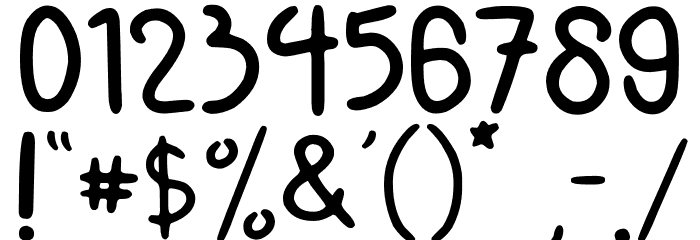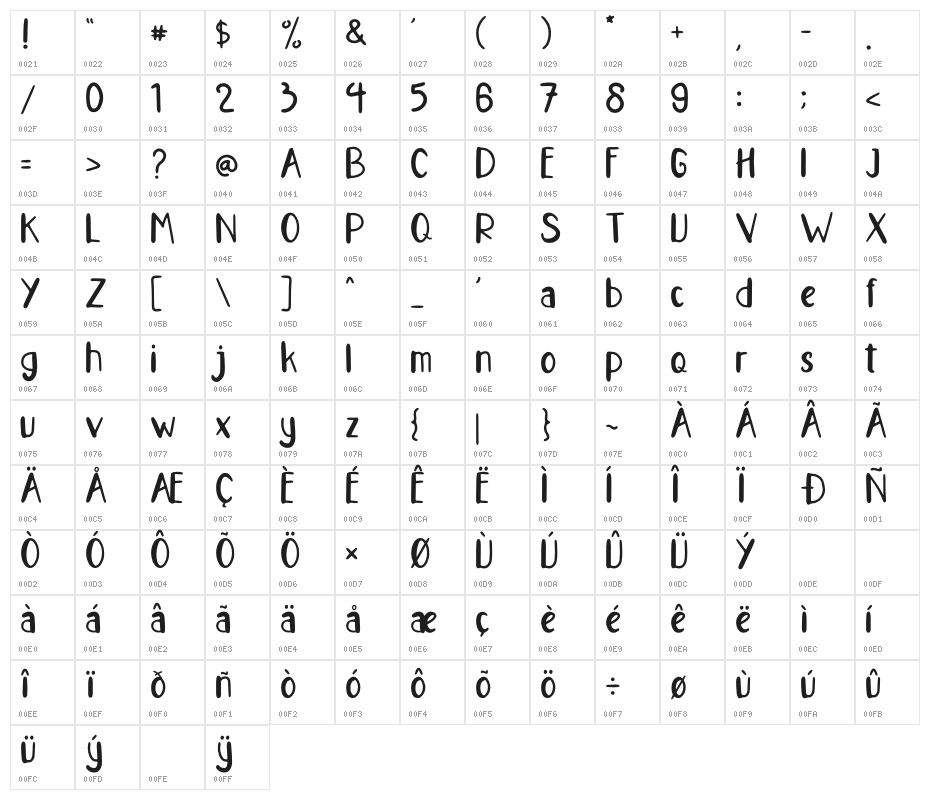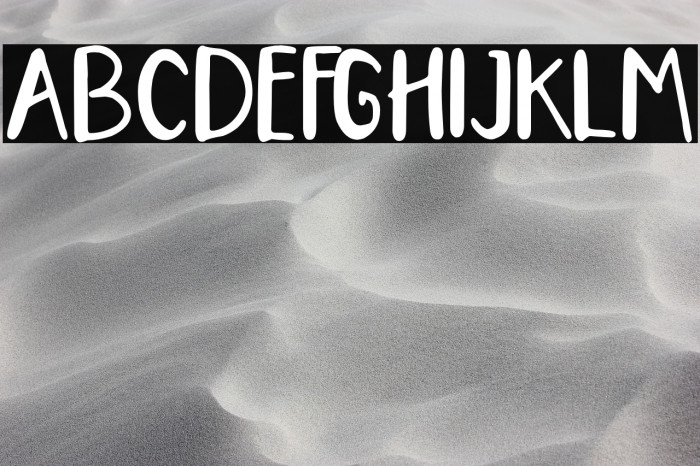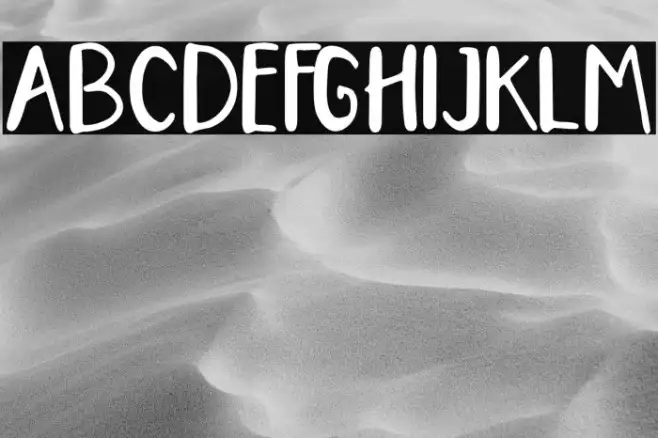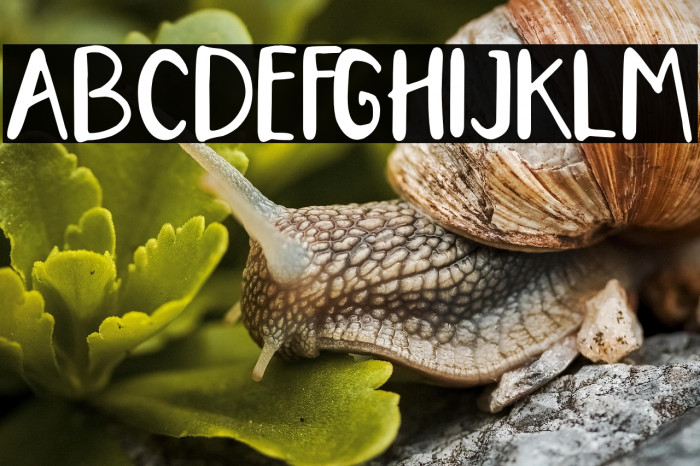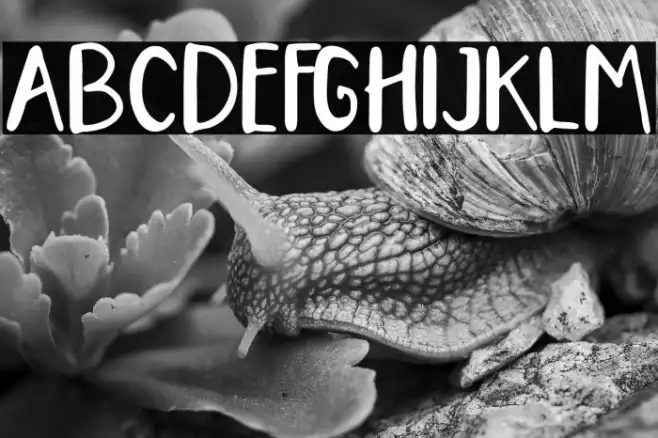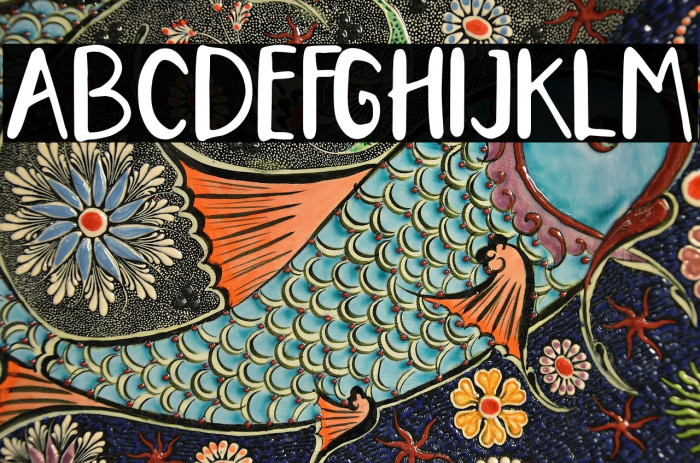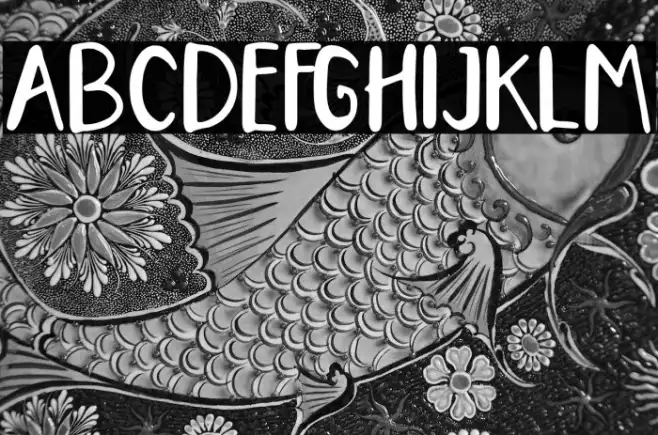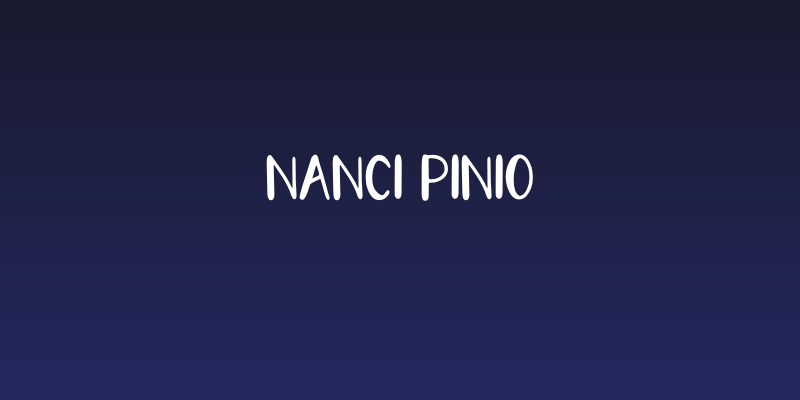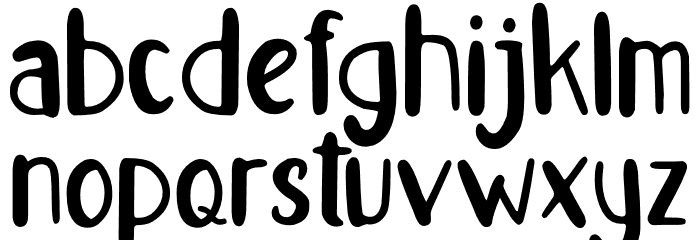
Nanci Pinio Font
Nanci Pinio Description
This playful and bold font features a handwritten style with a casual, friendly appearance. The letters are rounded and slightly irregular, giving it a whimsical and approachable feel. The uppercase and lowercase letters maintain a consistent style, with smooth curves and a slightly exaggerated height. Numbers and special characters are designed to match the playful nature of the alphabet, making it versatile for various creative projects. The font's overall look is informal and lively, perfect for conveying a sense of fun and creativity.
| Proposed Projects | Ideal for children's books, greeting cards, playful branding, and social media graphics. |